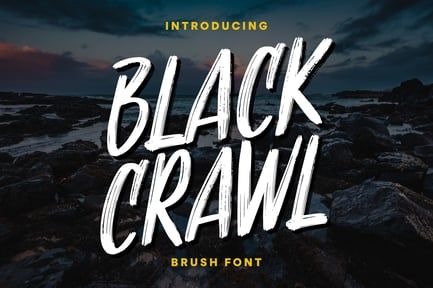
Blackcrawl – Bold Brush Font
* Bold and Expressive: Each letter is carefully designed to capture the intensity and spontaneity of brush strokes, giving your text a fresh, artistic vibe.
* Supports Multiple Languages: Blackcrawl includes a range of international characters to make your designs globally appealing.